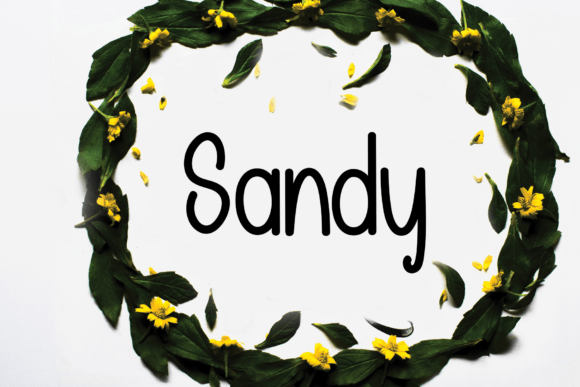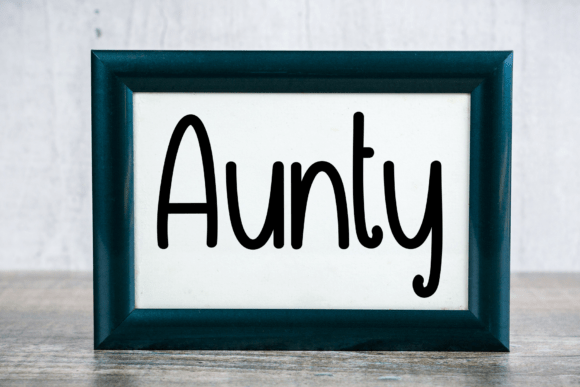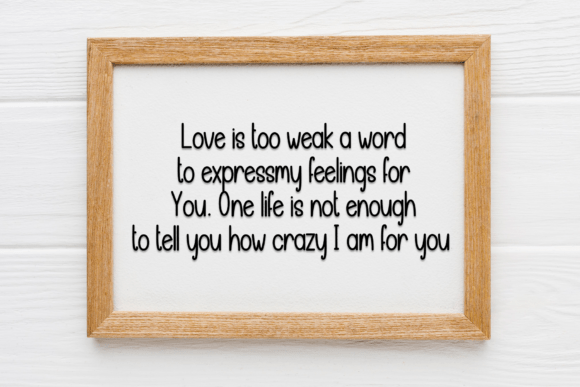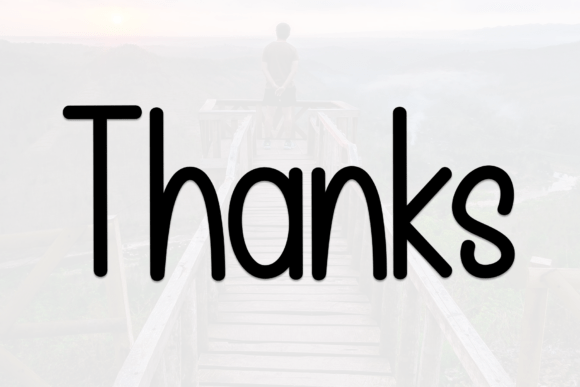
The Magical World of Disney Font: A Designer’s Delight
I’ll never forget the time I was working on a project for a children’s birthday party, and my client asked me to create a custom invitation that would make their little ones feel like they’re part of a fairy tale. I spent hours scouring the internet for the perfect font, and then I stumbled upon the Disney Font. It was love at first sight! ✨ The sweet, handwritten letters danced along the baseline, and I knew I had found the perfect fit for my project.
A Personal Review of Disney Font
- ✨ The unique, handwritten style that adds a touch of whimsy to any design project
- ✅ The flowing letters that dance along the baseline, creating a sense of movement and playfulness
- 💕 The font’s versatility, making it perfect for a wide range of design projects, from invitations and party decorations to branding and advertising
- 🎉 The font’s ability to evoke a sense of nostalgia and wonder, perfect for creating magical and memorable designs
While I adore the Disney Font, there are a few things to keep in mind when working with it. 🤔 For example, some of the letters may not be suitable for use in very small sizes, as they can become a bit blurry. ⚠️ Additionally, the font may not be the best choice for very formal or professional designs, as it has a distinctly playful and whimsical feel.
The Backstory of Disney Font
The Disney Font was created by a team of designers who wanted to capture the magic and wonder of the Disney brand. Inspired by the classic Disney movies and characters, they crafted a font that’s both playful and elegant. While the exact details of the font’s creation are unclear, it’s clear that the designers were driven by a passion for Disney and a desire to create a font that would bring joy and whimsy to designers and their clients.
| Font Name | Disney Font |
| Author | ArtLine Design |
Q: What is the Disney Font?
A: The Disney Font is a sweet and beautiful handwritten font featuring characters that dance along the baseline.
Q: What can I use the Disney Font for?
A: The Disney Font is perfect for a wide range of design projects, from invitations and party decorations to branding and advertising.